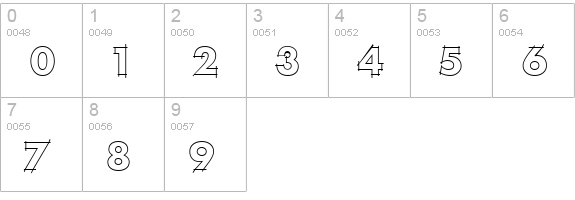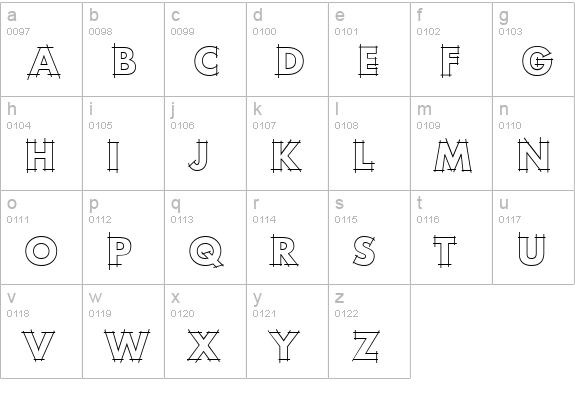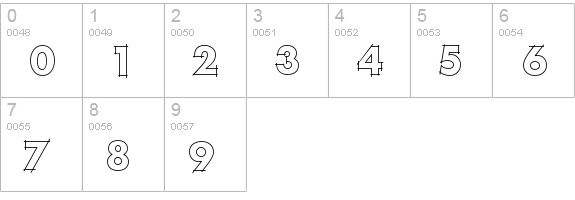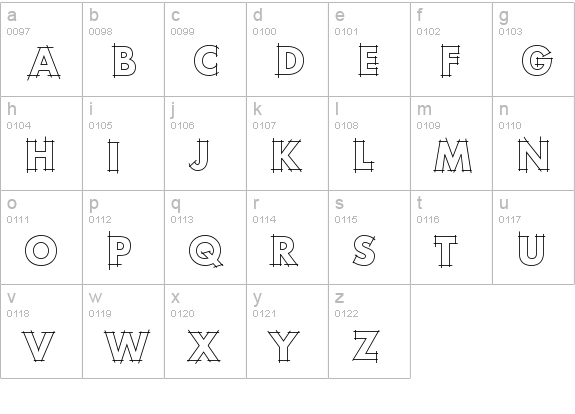
Introducing Rough DraftOutlines font, a versatile and dynamic typeface that adds a touch of creativity and originality to any design project. This unique font features a rough and edgy outline style, perfect for making a bold statement or adding a modern twist to your creations. With its distinctive character and sharp lines, Rough DraftOutlines font is ideal for a wide range of applications, from branding and advertising to posters, social media graphics, and more. Its eye-catching design will grab attention and make your message stand out from the crowd. One of the best things about Rough DraftOutlines font is that it is completely free to download at FontsMarket.com. Yes, you read that right – this high-quality font is available for free, allowing you to bring your vision to life without breaking the bank. Don't miss out on this fantastic opportunity to enhance your projects with the striking Rough DraftOutlines font. Download it today and let your creativity soar!